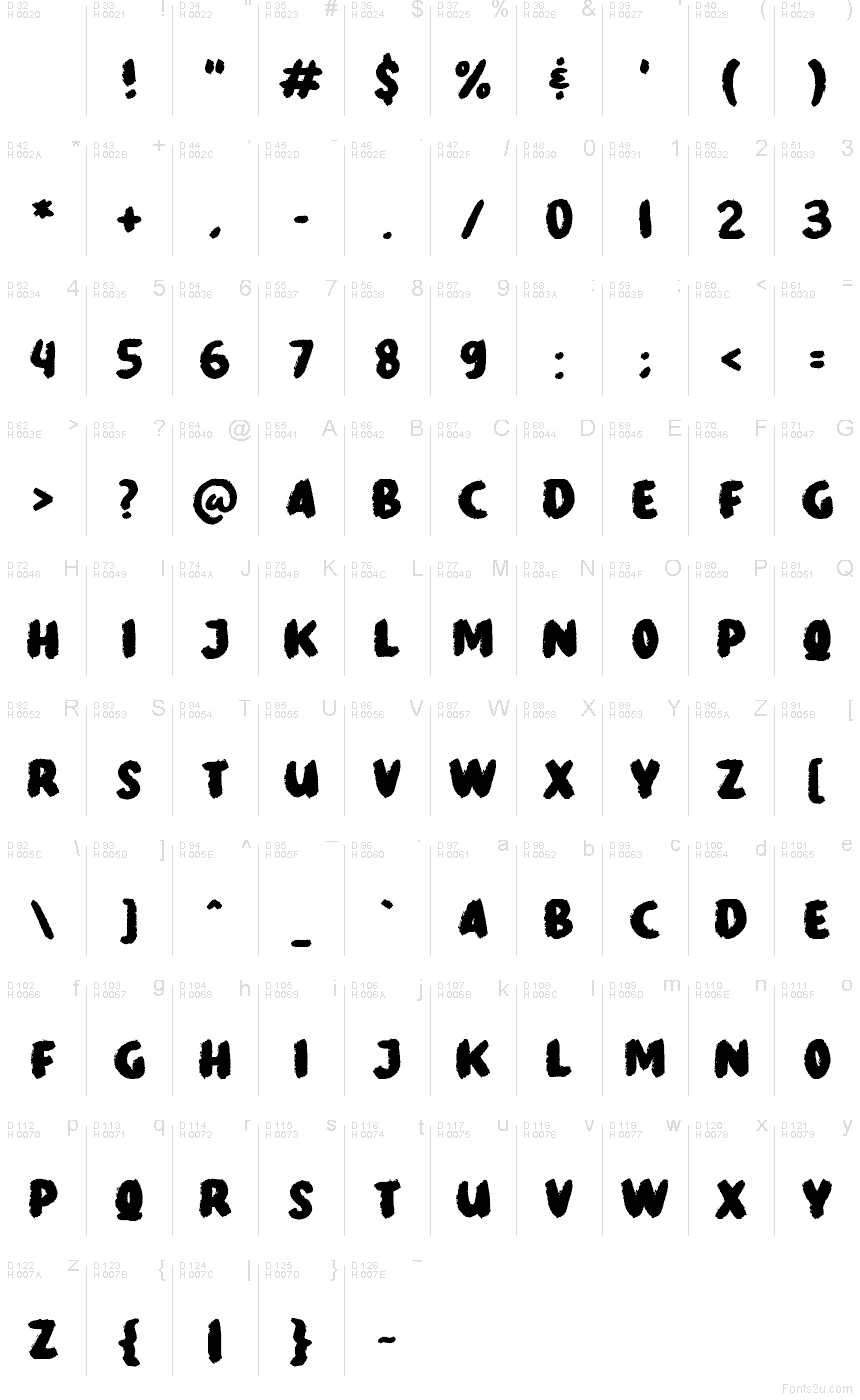
Strong Roar
Strong Roar font by Fikryal studio is a free brush font that hits like a shout across the page. Thick, inky strokes with rough, torn edges give each letter a wild, clawed texture, as if they were ripped onto the surface rather than drawn. The spacing is tight and compact, so words feel like a single, muscular shape—loud, gritty, and impossible to ignore.
Using Strong Roar, loud visuals come together fast: it works beautifully for posters, sports and esports graphics, YouTube thumbnails, band artwork, game titles, and bold streetwear branding. This free font thrives at large sizes where its rugged details can really snarl. For balance, pair it with a clean, condensed sans serif for body text or taglines, letting Strong Roar handle the punchy headlines.